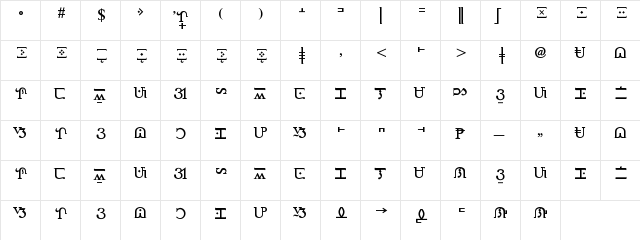
Formal Baybayin 1 - Normal Regular
Design Context for Formal Baybayin 1 - Normal Typeface
Formal Baybayin 1 - Normal takes a measured approach to typography — its balanced proportions and neutral character make it a reliable workhorse for both digital and print work.